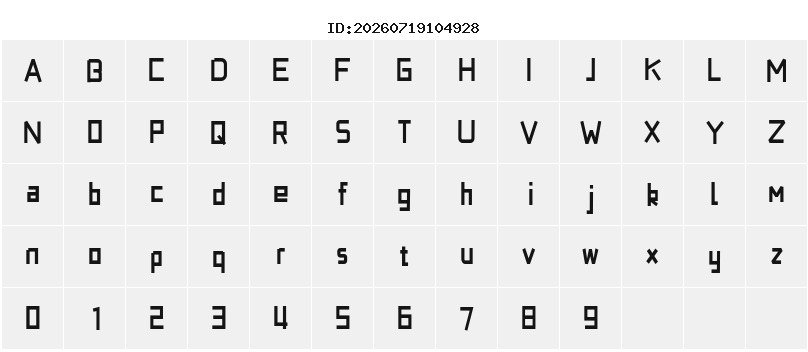
YEFONTDaiBanHei Preview
• Font Name: YEFONTDaiBanHei
• Font ID: 1.000;YEFO;YEFONTDaiBanHei-Regular
• Full Font Name: 也字工廠呆板黑 標準
• PostScript Name: YEFONTDaiBanHei-Regular
• Character Count: 7142
• Manufacturer: 也字工厂
About YEFONTDaiBanHei.TTF
YEFONTDaiBanHei.TTF is a modern, elegant sans-serif font designed for ultimate readability and visual harmony. Perfect for branding, headlines, web design, and print materials.